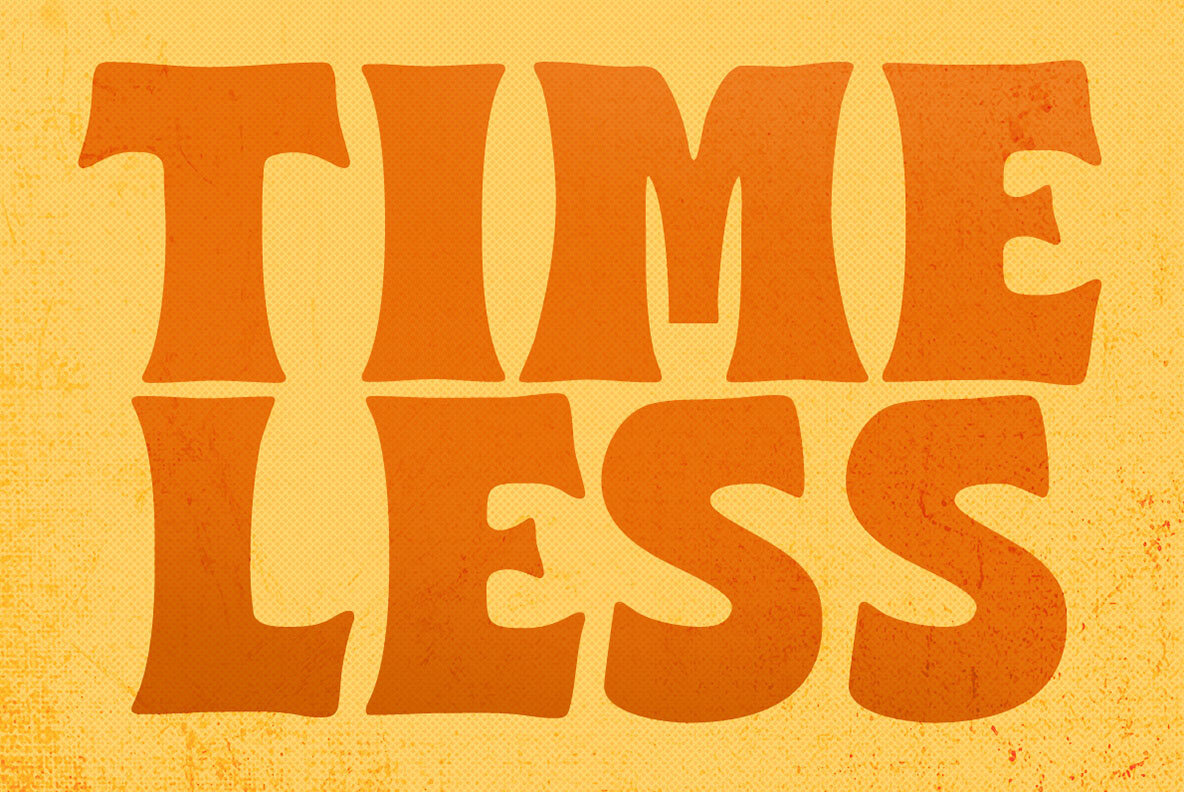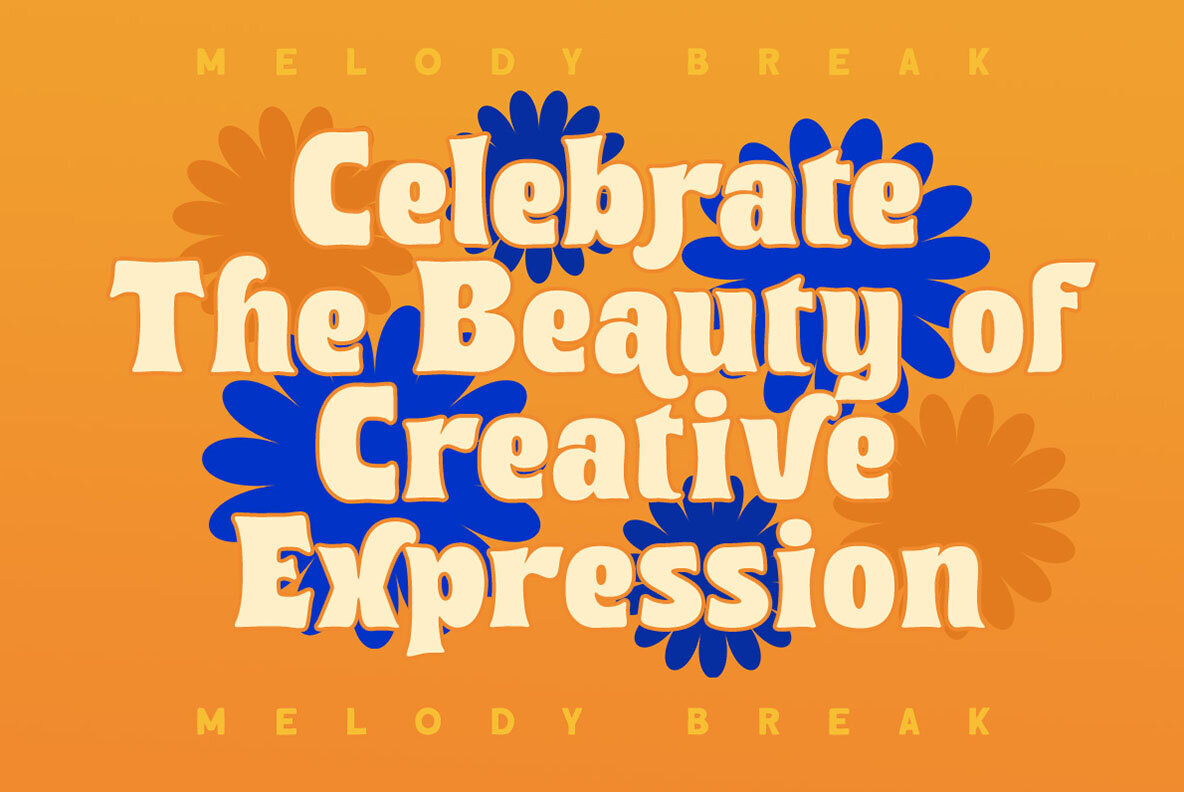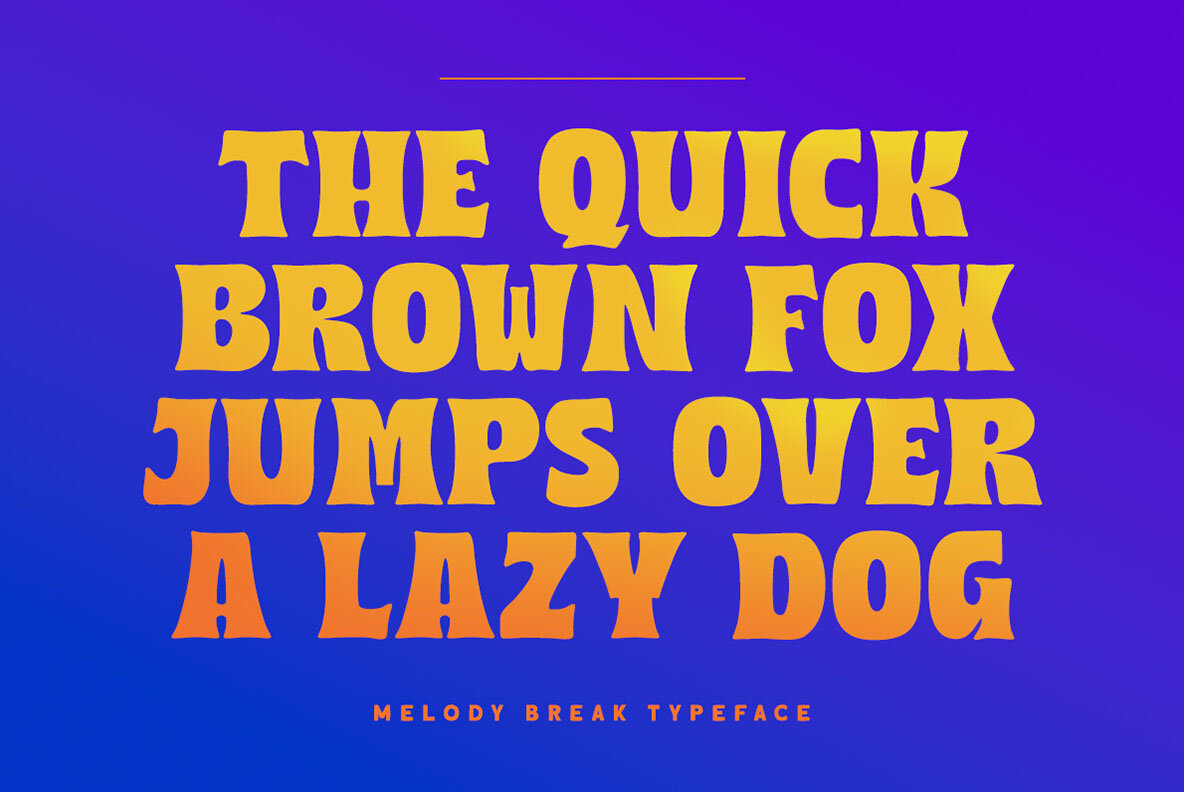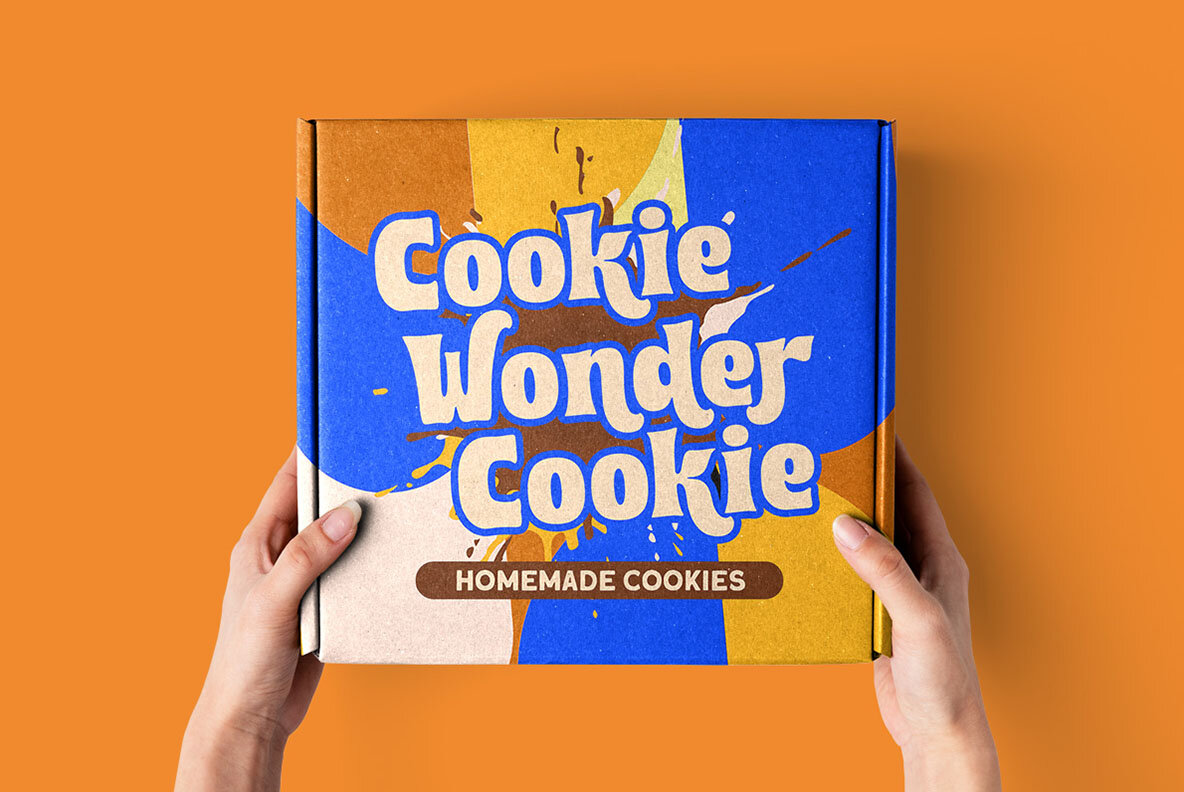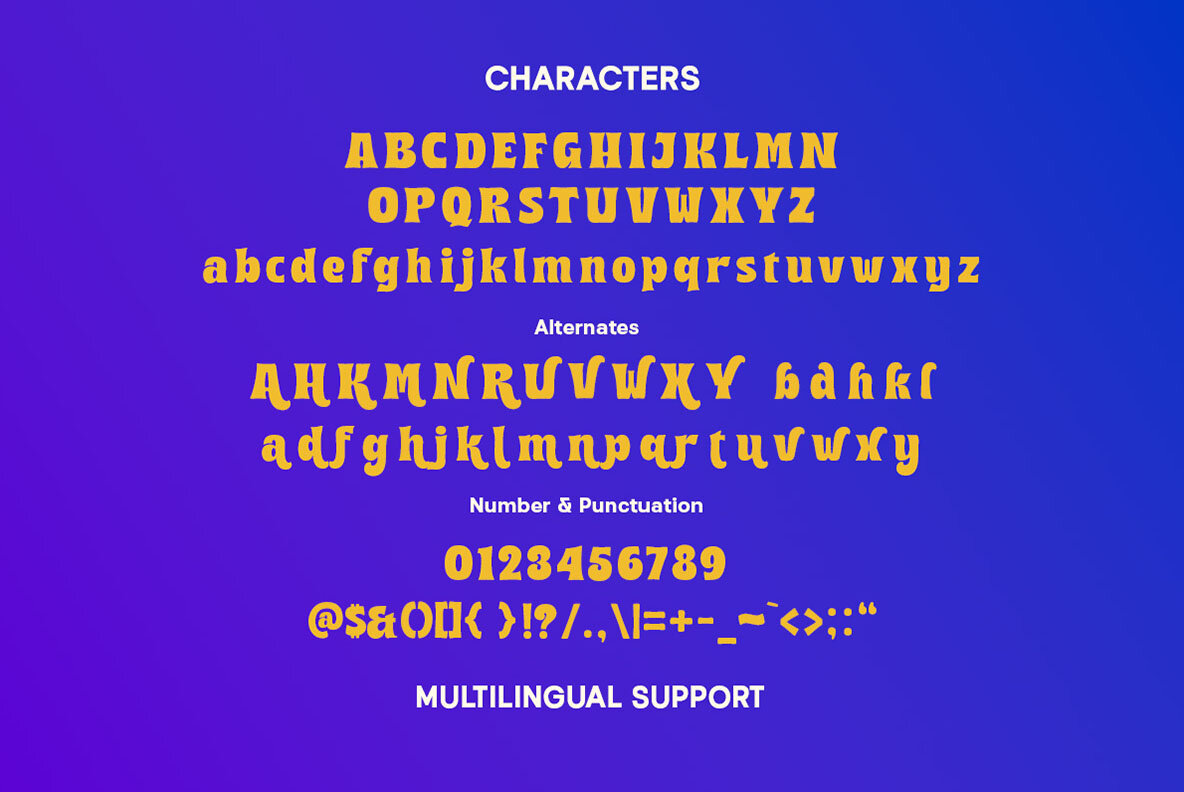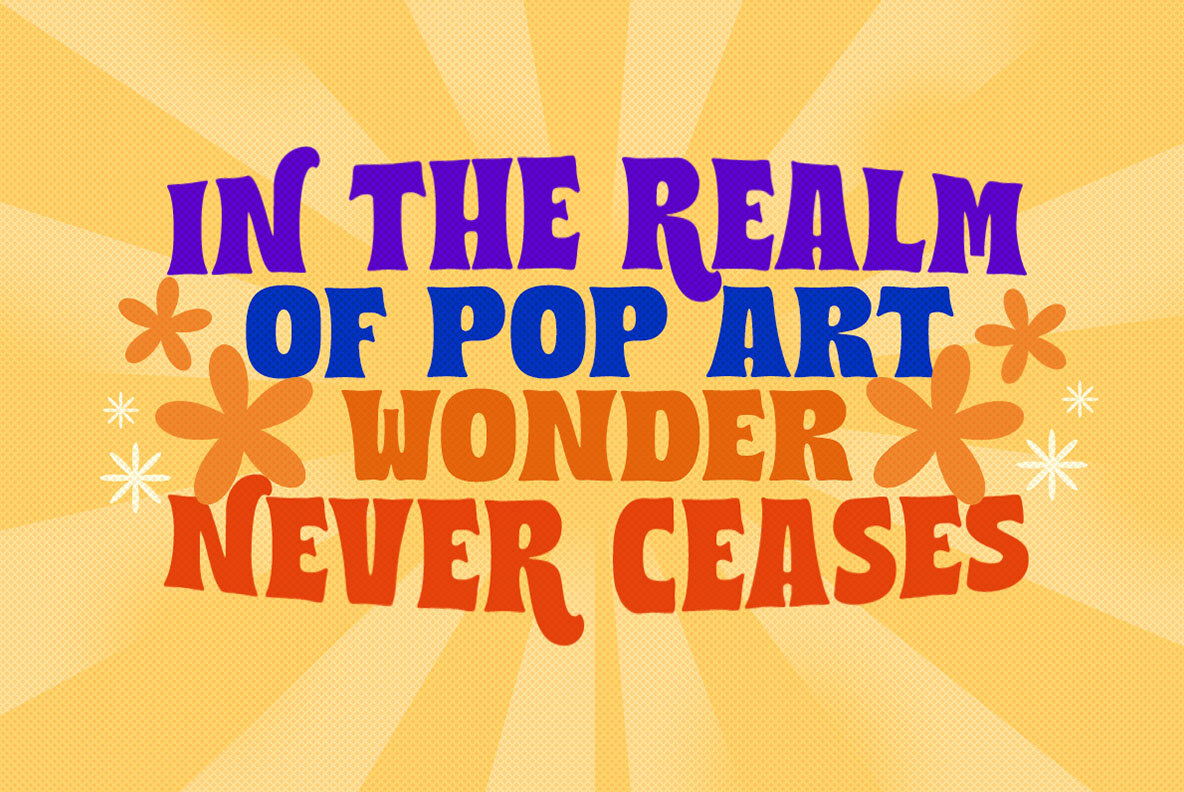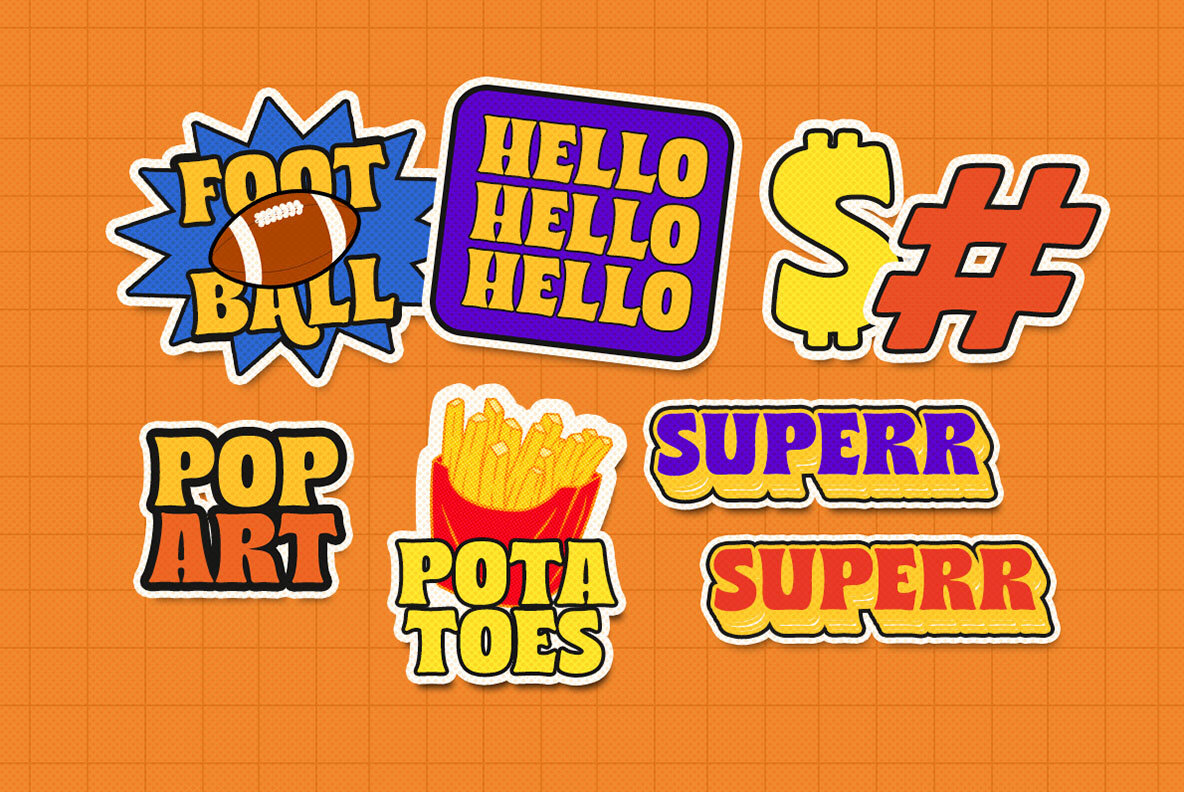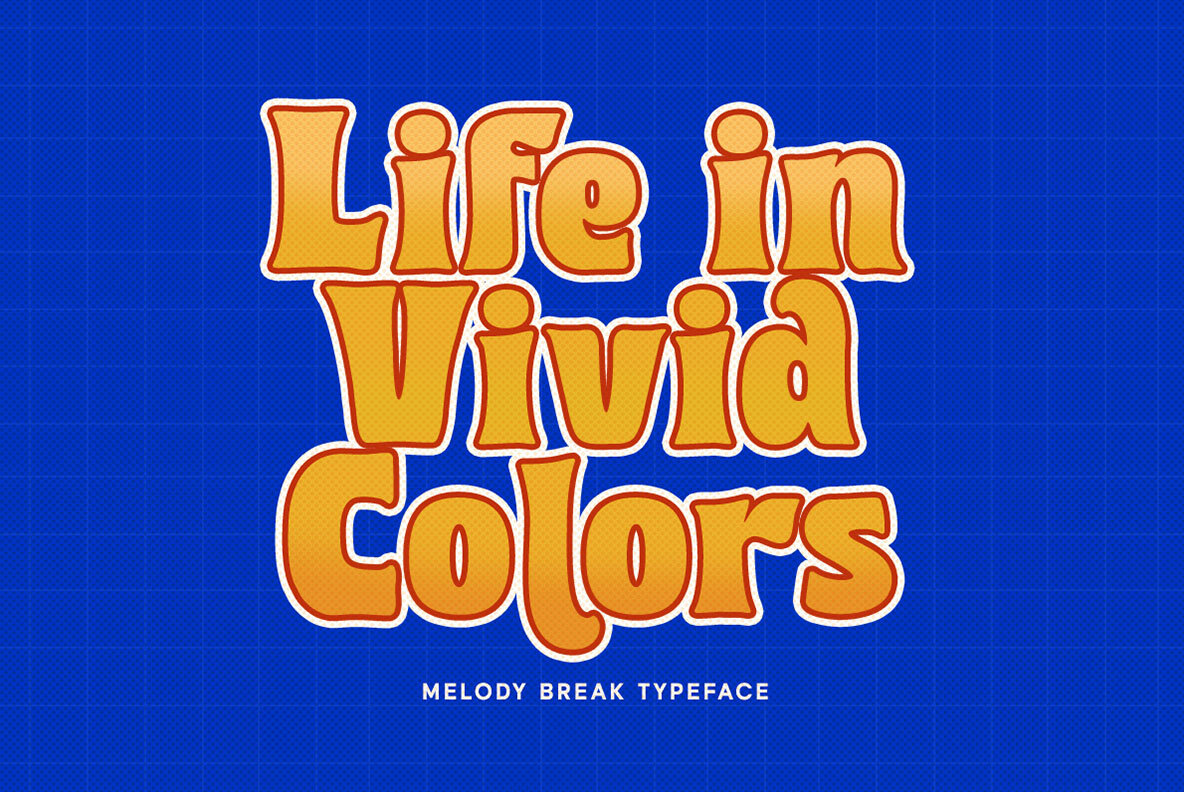
Melody Break Font
Melody Break Regular
Melody Break is a playful bold display with unique letterform. You can playaround to fit the form using uppercase and lowercase mode. This font perfectly made to be applied especially in logo, and the other various formal forms such as invitations, labels, logos, magazines, books, greeting / wedding cards, packaging, fashion, make up, stationery, novels, labels or any type of advertising purpose.